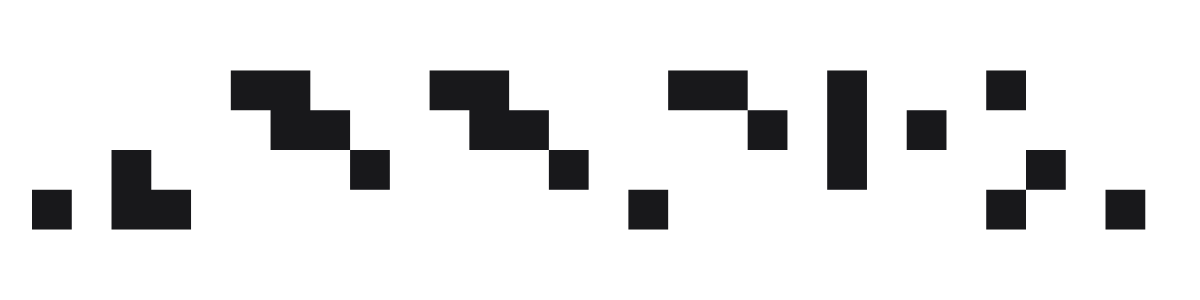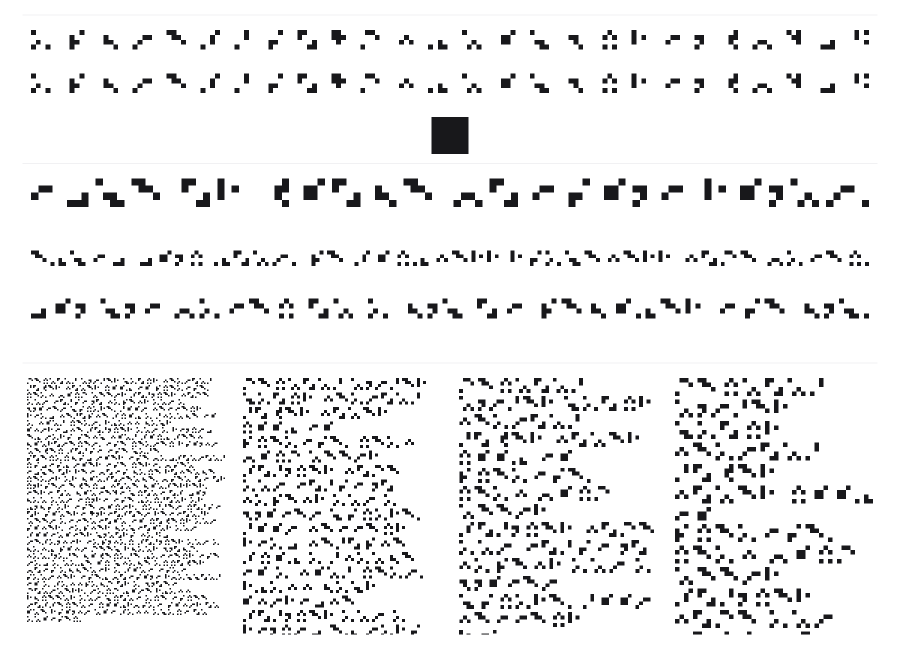
Meeksa
by Guy Man
Meeksa is a raw bitmap font built on a minimal pixel grid, where every character is assembled from small square blocks. The extremely low resolution gives it an authentic 8-bit quality that feels genuinely digital rather than imitated. It suits retro game interfaces, pixel art projects, and any context where lo-fi charm is the point.